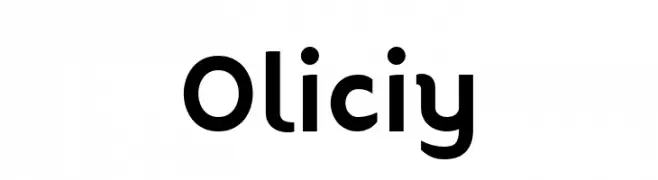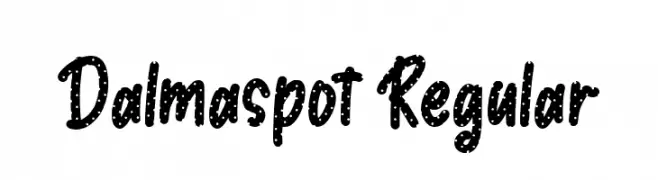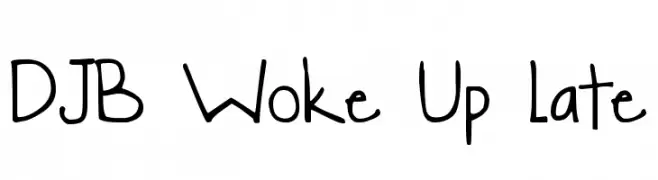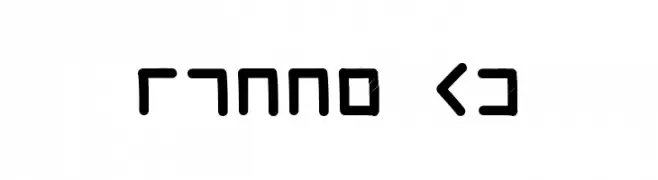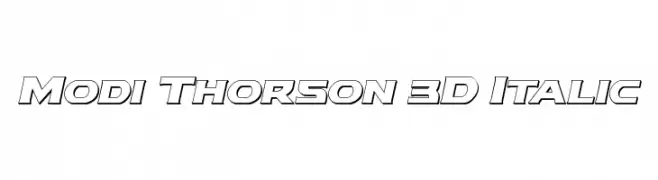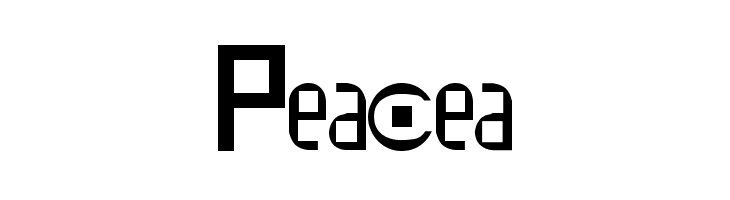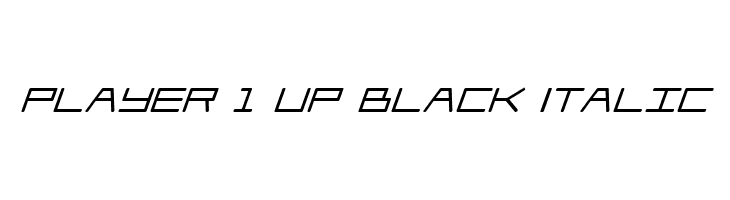
A modern, rounded sans-serif font with a friendly and balanced appearance.
A playful, dotted decorative font with a hand-drawn style.
A playful, casual handwritten font with a friendly and approachable style.
A modern, italic sans-serif font with a sleek and dynamic style.
A playful, handwritten font with bold, rounded strokes and a lively, informal style.
A bold, futuristic font with geometric shapes and a digital aesthetic.
A bold, distressed font with a grunge aesthetic and rugged texture.
A bold, 3D italic font with outlined characters and a futuristic style.